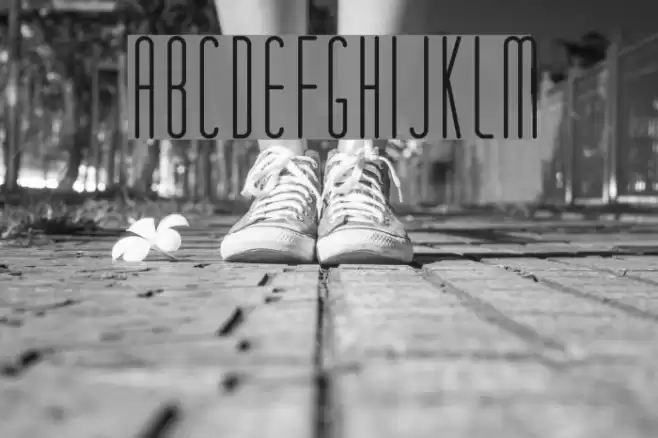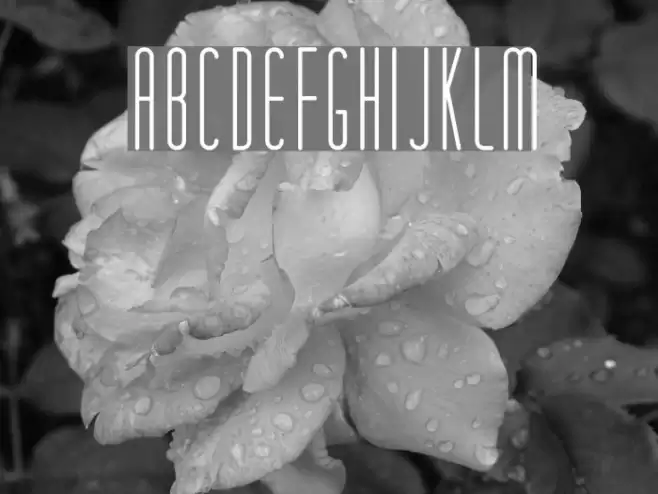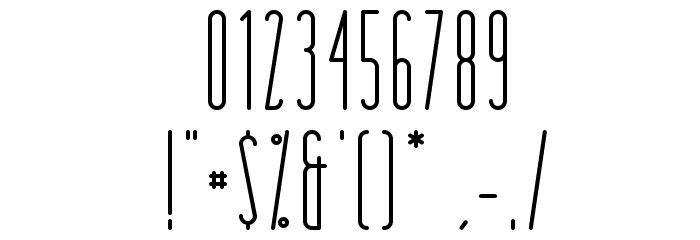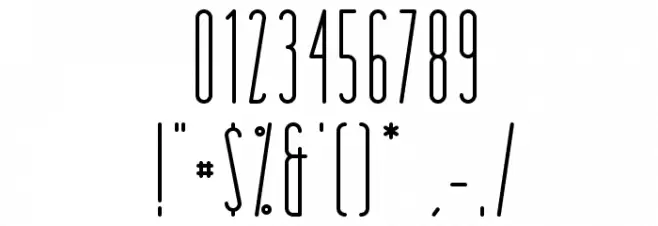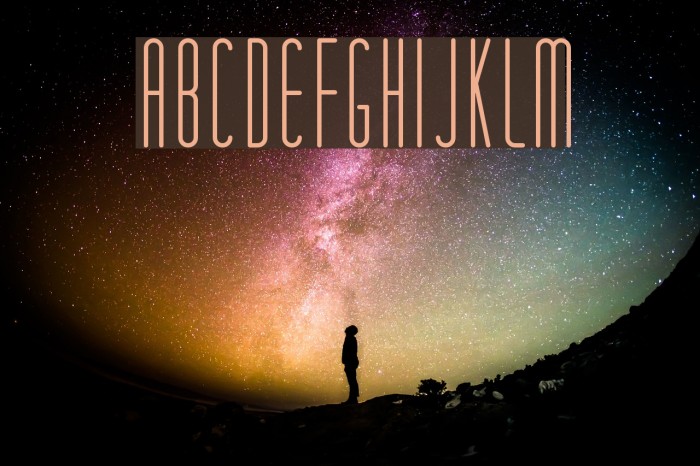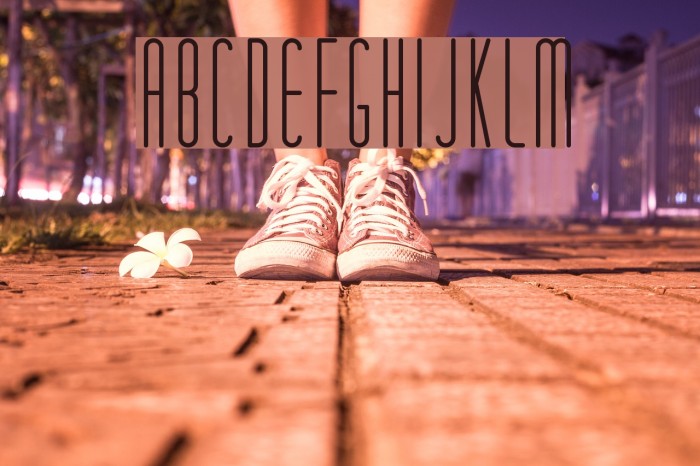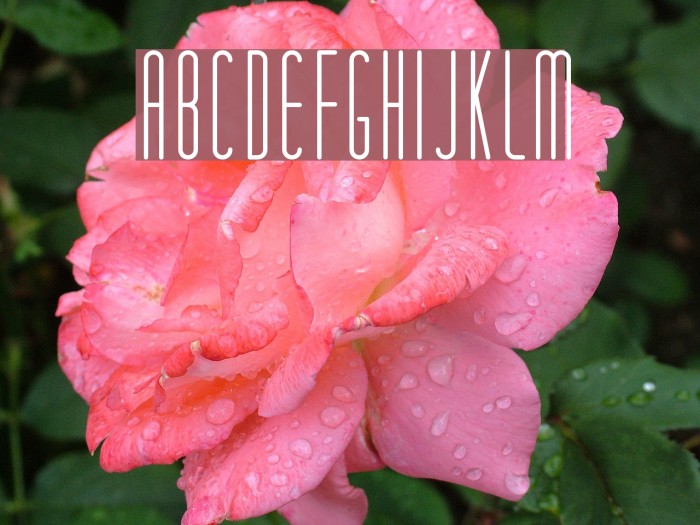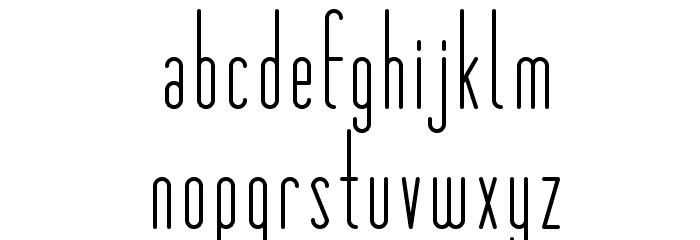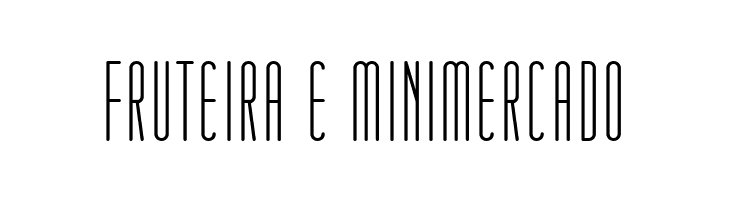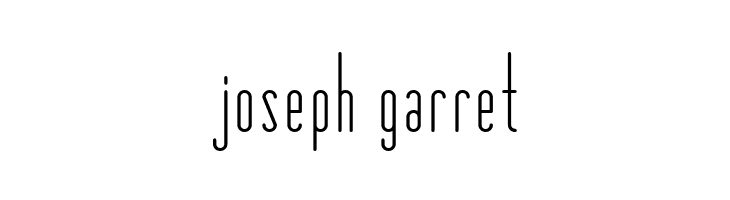
Matchbook Font
Matchbook Description
This font exhibits a tall, narrow structure with elongated lines, giving it a distinctive and elegant appearance. The characters are uniformly thin, contributing to a sleek and modern aesthetic. The uppercase letters are particularly elongated, while the lowercase letters maintain a consistent height, providing a harmonious balance. The numerals and special characters follow the same slender design, ensuring a cohesive look across all text. This font's minimalistic style makes it versatile for various design applications, offering a clean and sophisticated look.
A tall, narrow, and elegant font with a sleek, modern aesthetic from Sans Serif fonts.
- Proposed Projects: Ideal for fashion magazines, luxury branding, minimalist posters, and elegant invitations.